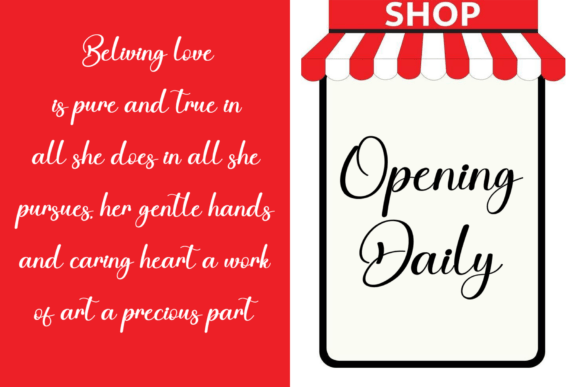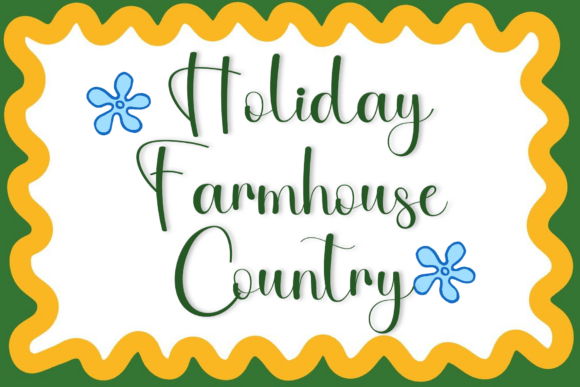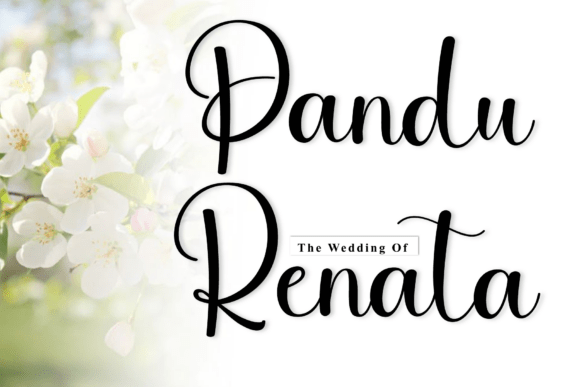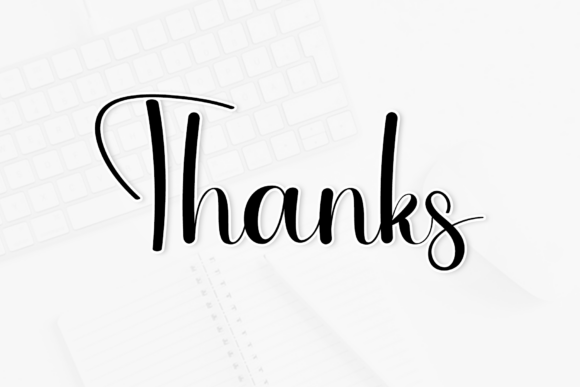
The Elegance of Gadgets Font: A Designer’s Delight
I still remember the project that led me to discover the beauty of Gadgets Font. I was working on a branding campaign for a local artisanal bakery, and I was struggling to find the perfect font that would capture the warmth and uniqueness of their handcrafted products. That’s when I stumbled upon Gadgets Font, and it instantly became my go-to choice. In this article, I’ll share my love for this sophisticated script font and provide a comprehensive guide on how to make the most of its features.
- ✨ The sweeping, looping ascenders that give it a sense of customized, artisanal artistry
- ✅ The perfect balance of calligraphic style and warm, organic aesthetic
- 💫 The versatility to work well for artisanal food branding, boutique product packaging, upscale lifestyle marketing, and creative editorial titles
- 🎨 The range of OpenType features, glyphs, and stylistic alternates that allow for creative experimentation
- 🤔 Some users may find the font a bit challenging to read at smaller sizes due to its intricate design
- ⚠️ Limited use of bold or heavy weights, which may not be ideal for certain design applications
Gadgets Font was designed with the aim of capturing the essence of artisanal craftsmanship in a digital font. The designer, inspired by the flowing lines and curves of traditional calligraphy, sought to create a font that would bring a sense of warmth and uniqueness to any design project. The result is a font that balances sophistication with a homespun feel, making it perfect for a range of creative applications.
- Q: What type of projects is Gadgets Font best suited for?
- A: Gadgets Font is ideal for artisanal food branding, boutique product packaging, upscale lifestyle marketing, and creative editorial titles.
- Q: Does Gadgets Font come with a range of weights and styles?
- A: While Gadgets Font offers a range of OpenType features and stylistic alternates, it may not have a wide range of weights and styles.